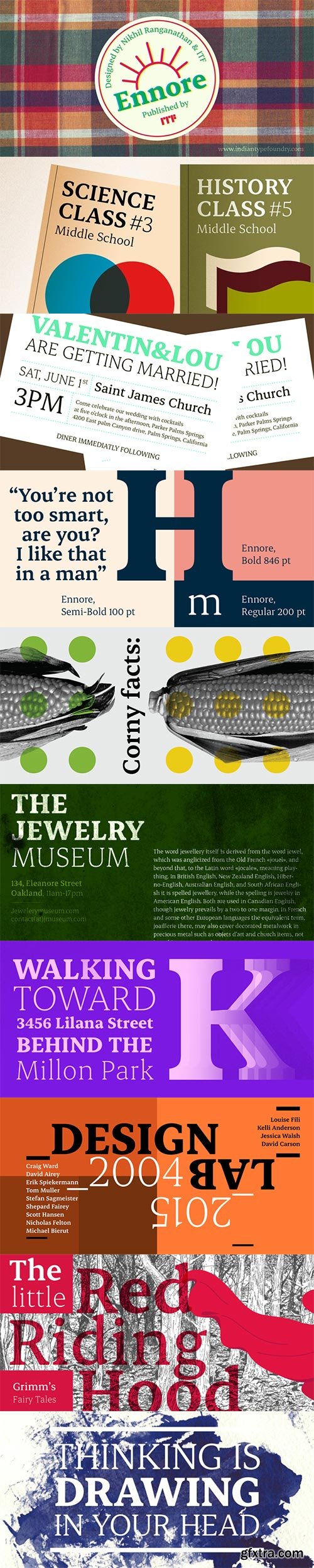
Ennore - Clear Stroke Contrast for Editorial $130
- Named after a Chennai suburb, Ennore is a serif typeface for the Latin script. Its family includes five font weights, and all of them have clear stroke contrast. Their ascenders are long, and the letters’ counter forms are open. Ennore is an excellent selection for editorial designers looking for a new typeface to set eye-catching pull quotes or headlines with. It is also an optimal selection for display text. Ennore was developed in 2015 by Nikhil Ranganathan and ITF.